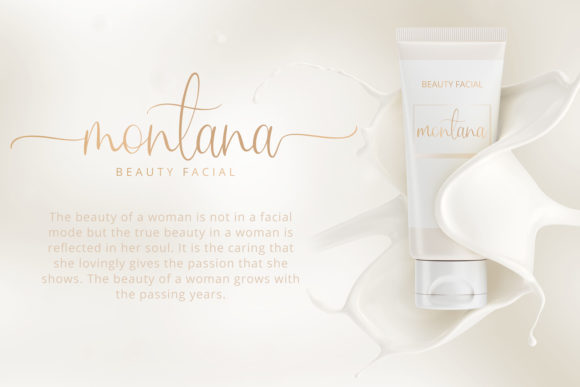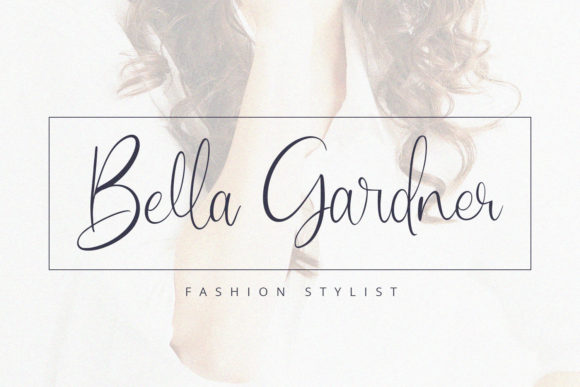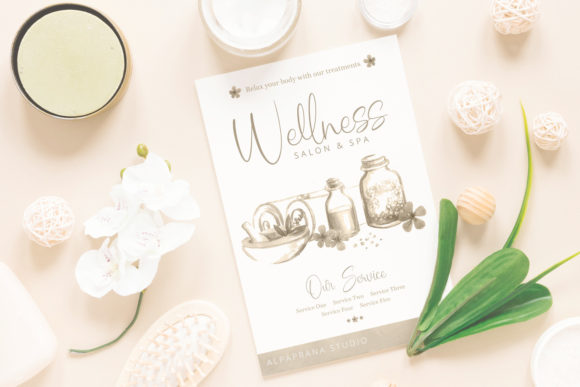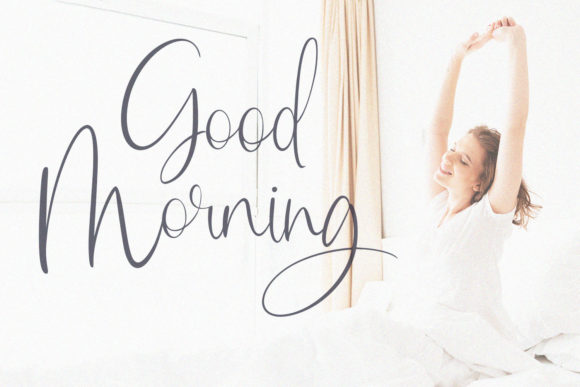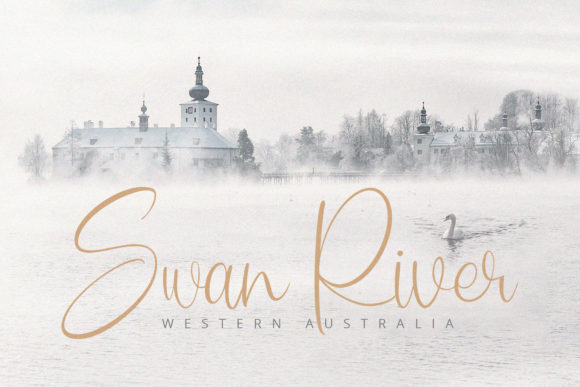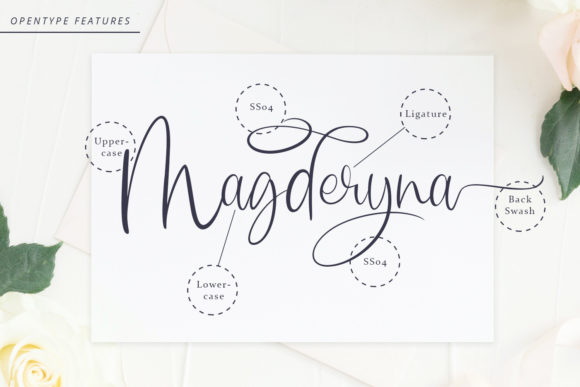
Introduction to Magderyna Font
Magderyna is a beautiful light handwritten font with a unique feel and a stunning impact.
Why Choose Magderyna Font?
Magderyna Font offers exceptional quality and versatility, making it a valuable addition to your design toolkit. Whether you’re creating for personal projects or commercial use, Magderyna Font delivers professional results.